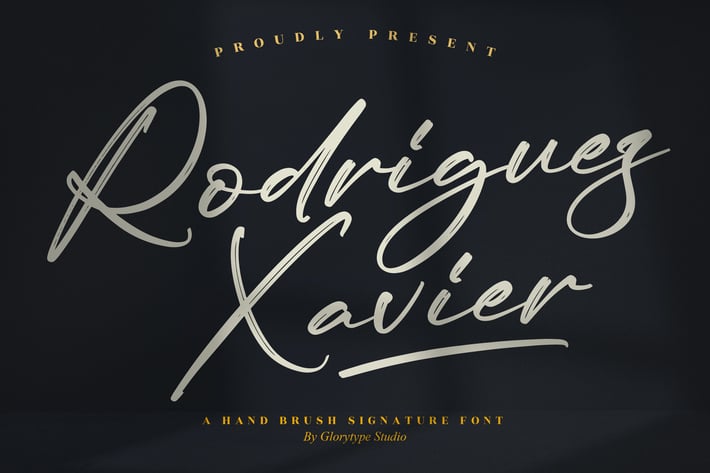
Rodriguez Xavier Brush Signature Font
Rodriguez Xavier is a hand-brush signature font designed to bring boldness and character to your creative projects. With natural brush strokes, dynamic line variation, and an authentic signature flow, this font works beautifully for high-impact headlines, branding, and elegant personal projects.
+ Hand-brush texture with natural stroke endings
+ Signature-style letterforms and smooth connections
+ Alternates & ligatures for varied, natural looks
+ Works in both large display and smaller text sizes
+ Multilingual character support
+ Branding & logos
+ Social media graphics & headers
+ Posters & banners
+ Invitations & wedding materials
+ Packaging & product labels
+ Personal signatures & stationery
Make every word feel personal and powerful — Rodriguez Xavier turns ordinary text into a confident, hand-brushed signature.